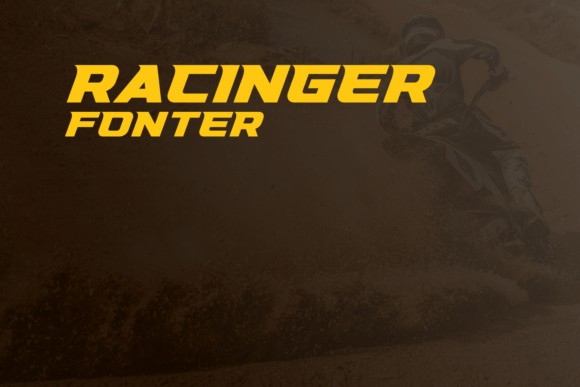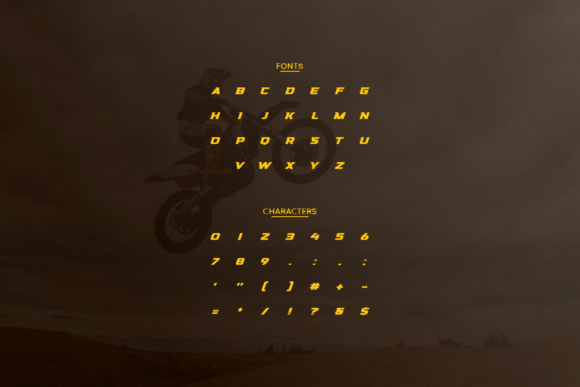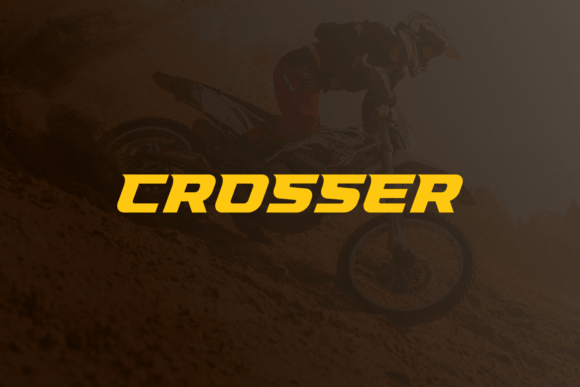
Runner Font – Free Download
Introduction to Runner Font
Runner is a modern, elegant, and sports-themed display font.
| 📌 Product Name | Runner Font |
| 👤 Author | Letterna |
This font would be ideal for web design, logos, magazines, posters, business cards, or pretty much anything else that requires a unique touch .
Key Features of Runner Font
Why Choose Runner Font?